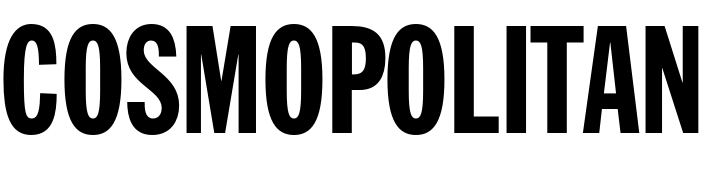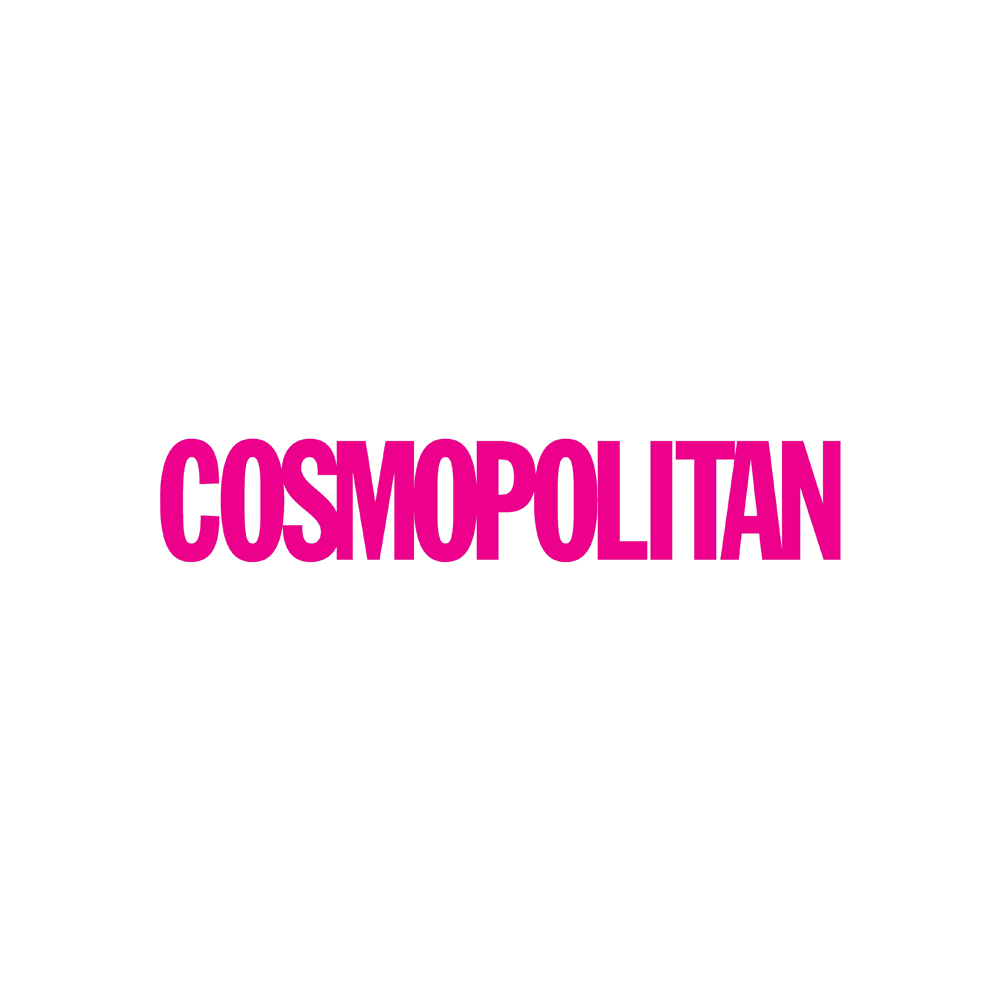
Cosmopolitan Logo Font
BookCosmopolitan is a women's magazine focused on fashion, beauty, and relationships. It also refers to a worldly, culturally diverse attitude.
Franklin Gothic Extra Condensed is the font used for the Cosmopolitan logo. Franklin Gothic is one of the most popular and widely used sans serif fonts. Morris Fuller Benton created it in 1902 for American Type Founders.